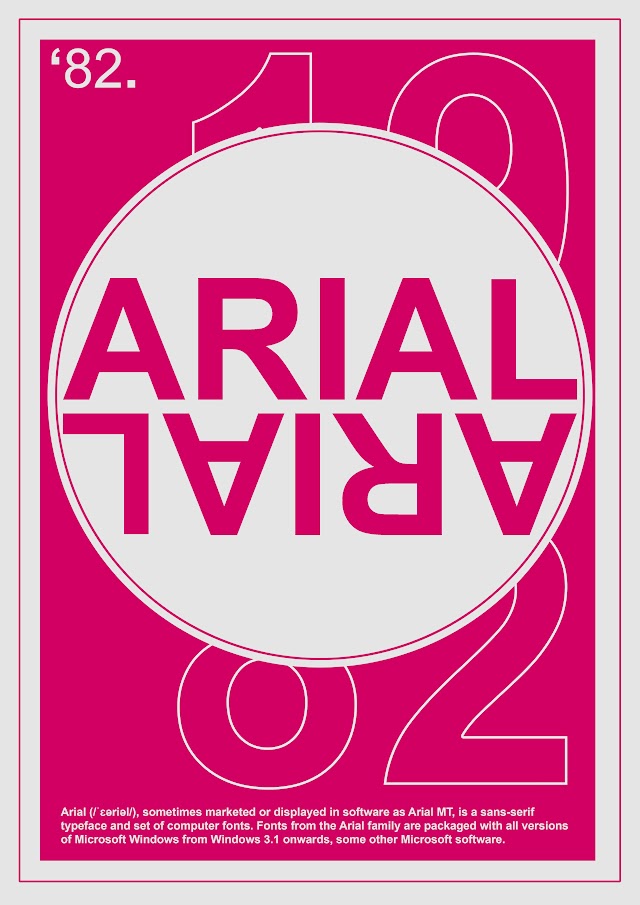
The download now link directs you to the windows store, where you can continue the. Install new fonts in windows 10 via file explorer. You can browse popular fonts by themes, name or style.
You can create multiple folders to manage fonts. I.e, using the file explorer’s context menu. Win researcher version 1.00 font (font family name:
Every font is free to download! Founder type hei ti (æ–¹æ£é»‘体简体) is a very formal sans serif font that is free to download. Download free fonts collection of most popular free to download fonts for windows and mac.
If you are looking for arabic fonts online, oustad arabic is designed by naghi naghashian. Full versionn includes 86 myanmar fonts, full keyboard driver, translated ms office menu's, and several other useful utilities. Browse fonts by categories such as calligraphy, handwriting, script, serif and more.
To install a new font in windows 10, just drag the truetype file to the font control panel. This font comes with 12 designated styles including roman, italic, and daring. For instance, i’ve downloaded the source sans pro from google fonts and extracted into a folder.
Very clear and easy to read is the primary reason people pick calibri over the competition. You can also install fonts in windows 10 via the old fashioned way. This page is powered by a knowledgeable community that helps you make an informed decision.